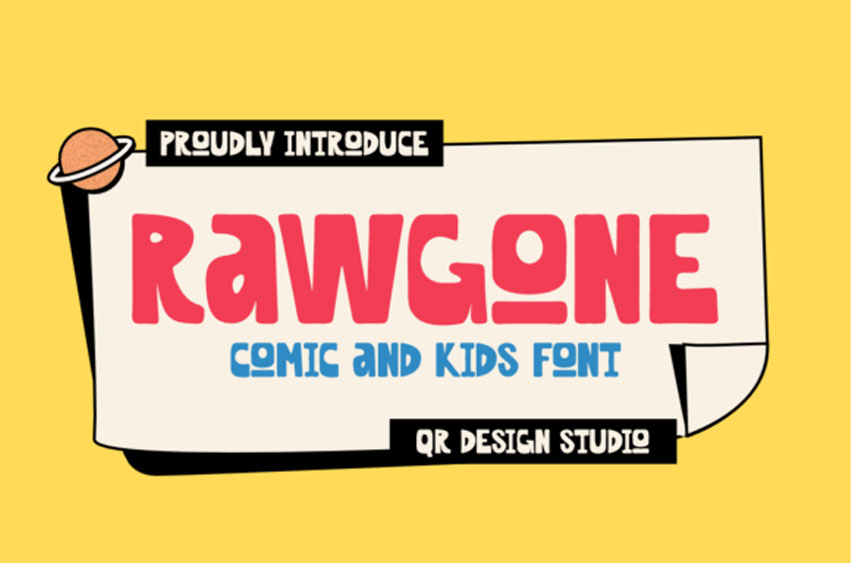
Rawgone Font is a bold and authentic display font. The font is suitable for any branding project, like logos, sport, and many more.
Outstanding in a wide range of contexts.